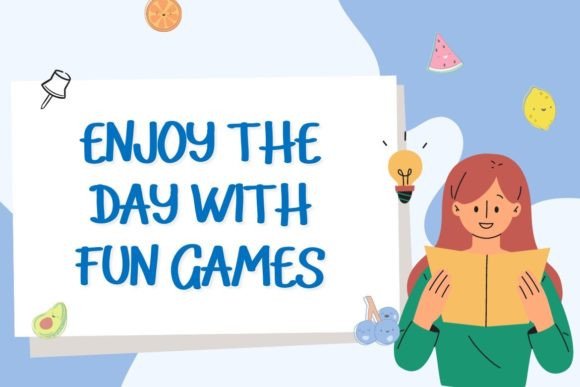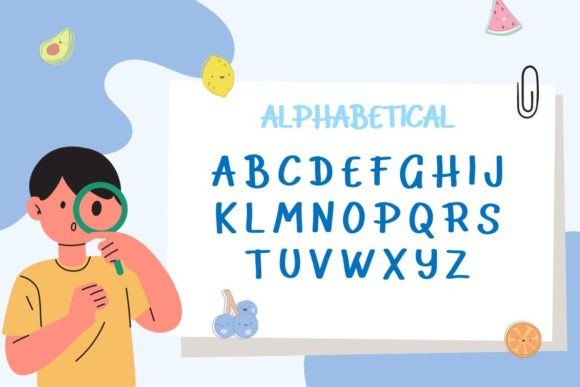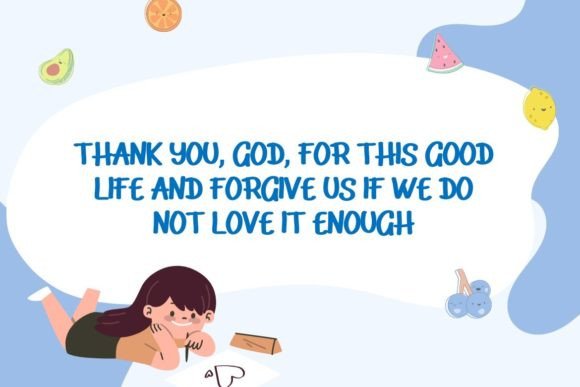
Introduction to Danycow Font
Danycow is an attractive and unbalanced handwritten font that brings a sense of whimsy to any design.
Its uneven strokes and playful loops convey a sense of creative spontaneity Perfect for playful branding, social media graphics, and greeting cards, this font is sure to add a touch of quirkiness to your projects.